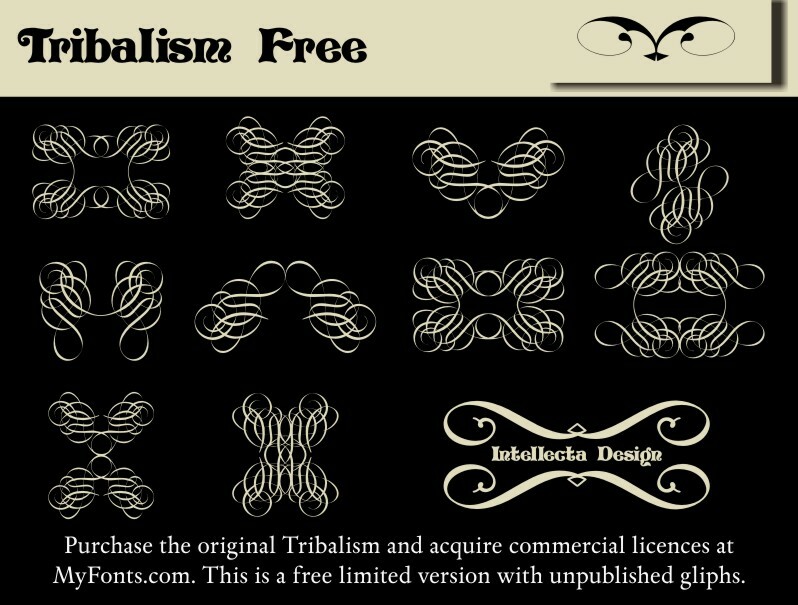
Tribalism by Iza W of Intellecta Design is a free ornamental symbol font built around tribal-style motifs. Its marks range from compact spearhead clusters to long mirrored bands, loops, and mask-like emblems. The collection favors crisp symmetry and solid silhouettes.
Tattoo and tribal graphic traditions make it particularly suited to music posters and streetwear merchandise, where the symbols can function as borders or standalone badges. The same sharp curves and repeated forms also fit game interfaces and event graphics, especially as dividers, crests, or decorative bands.